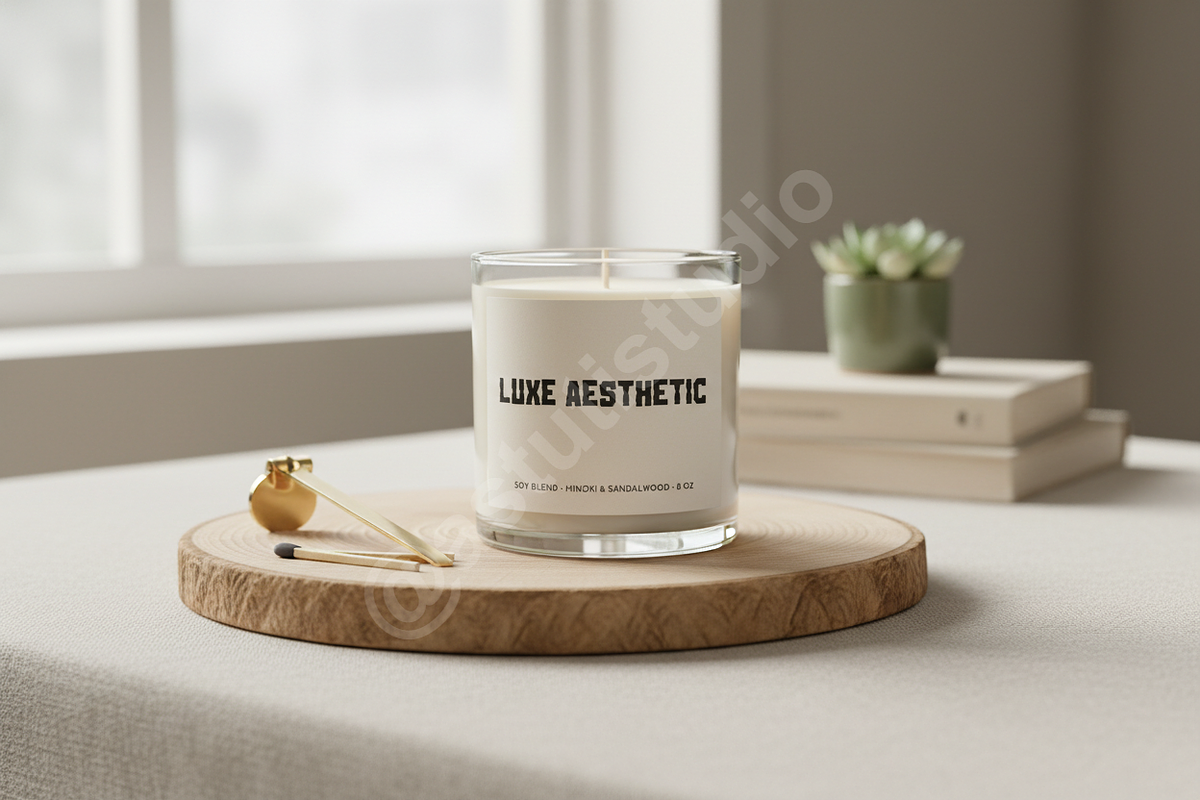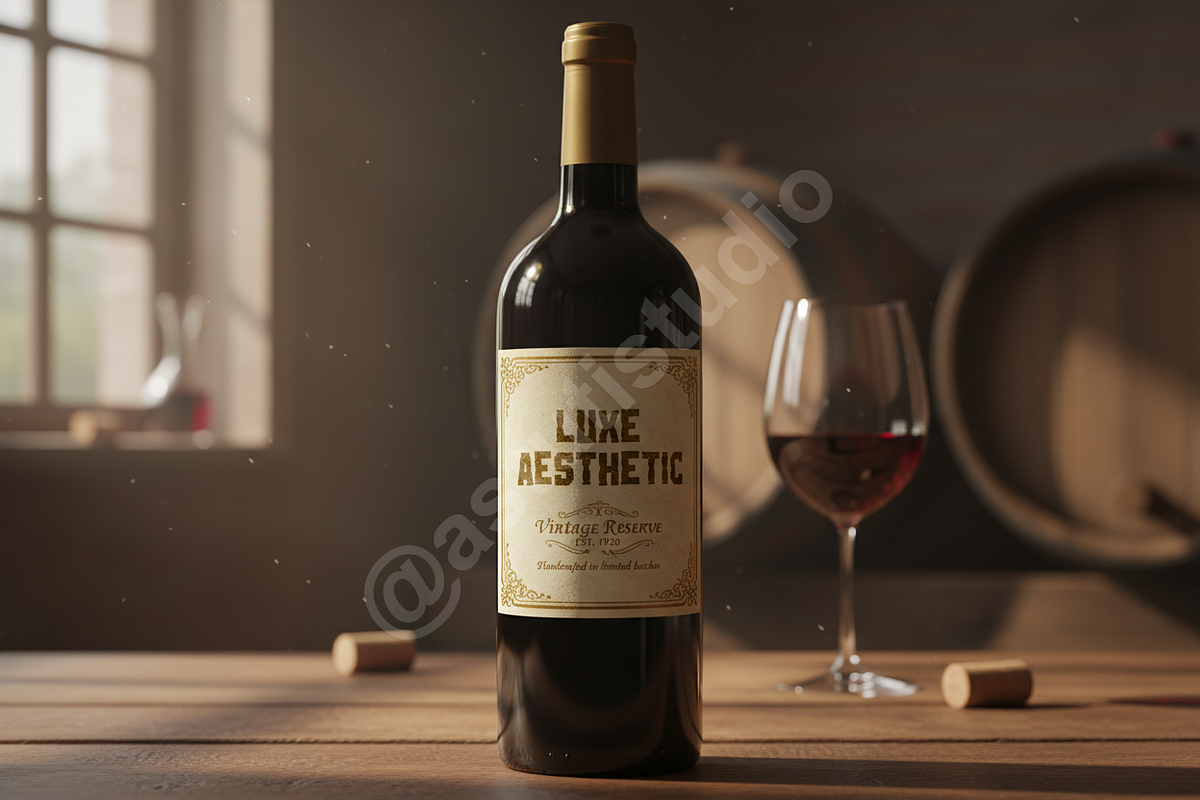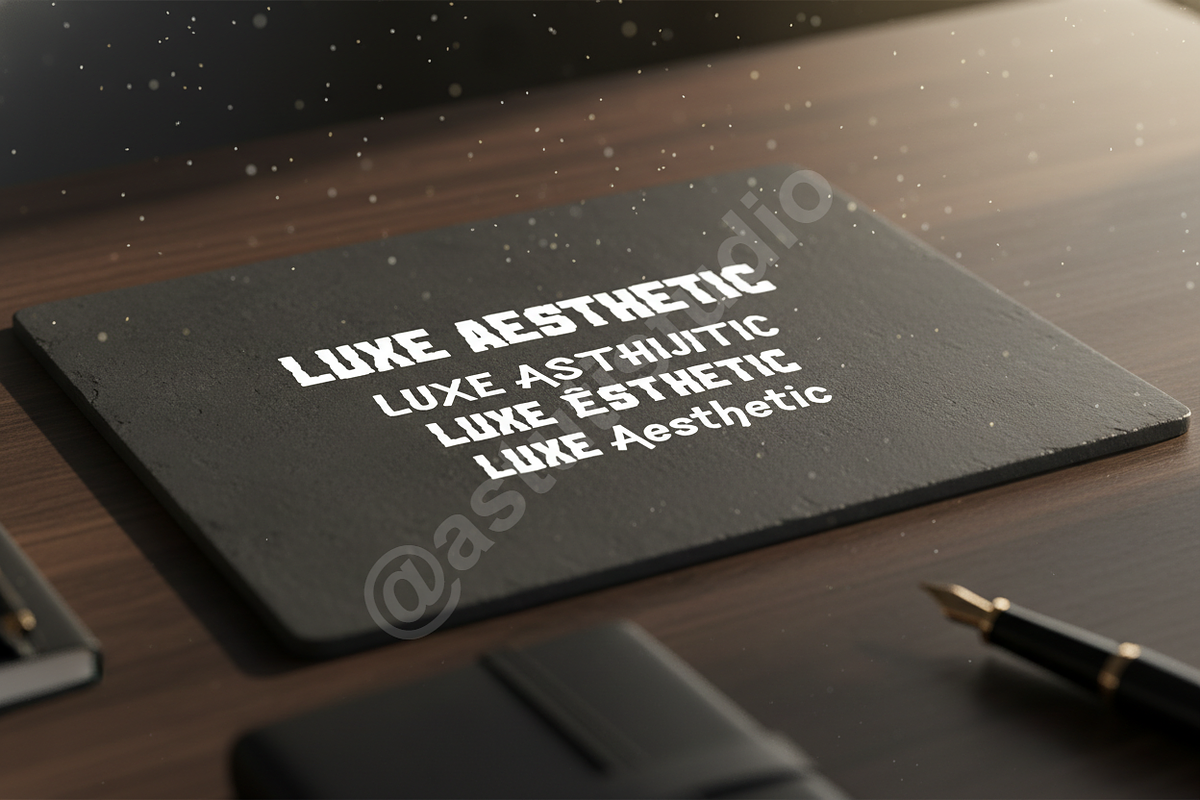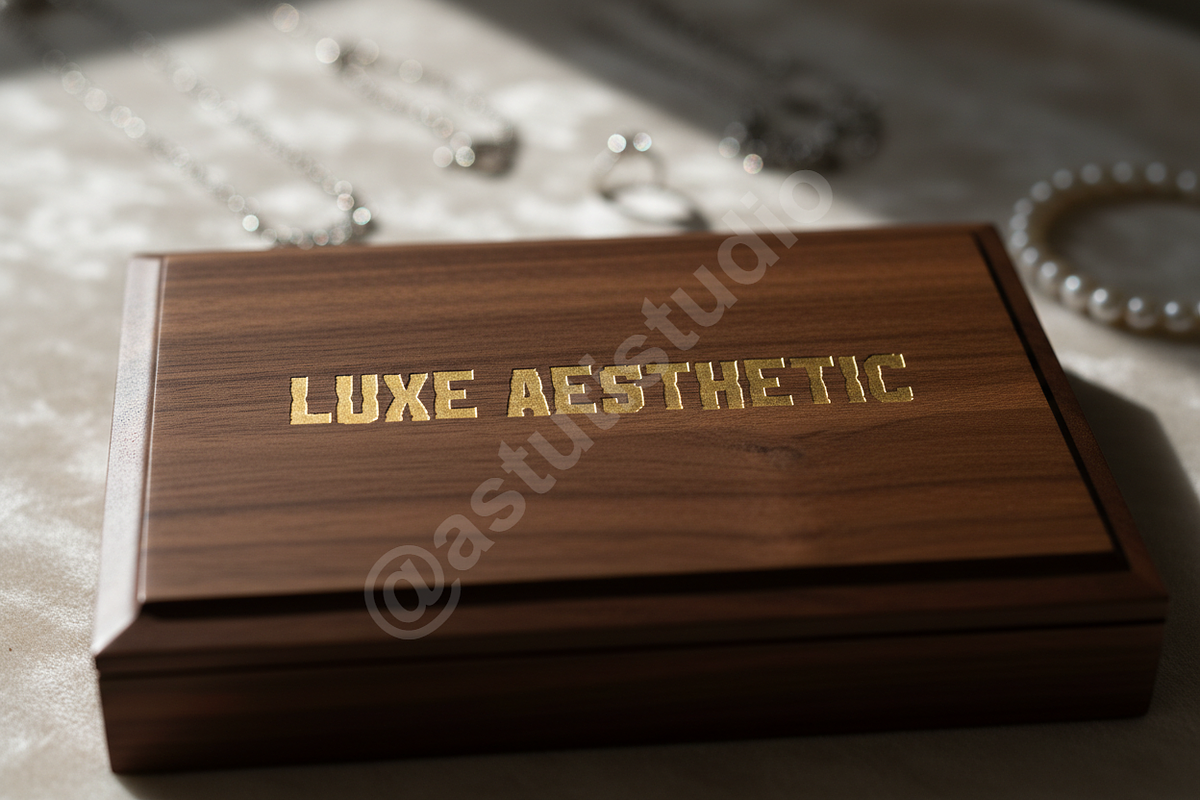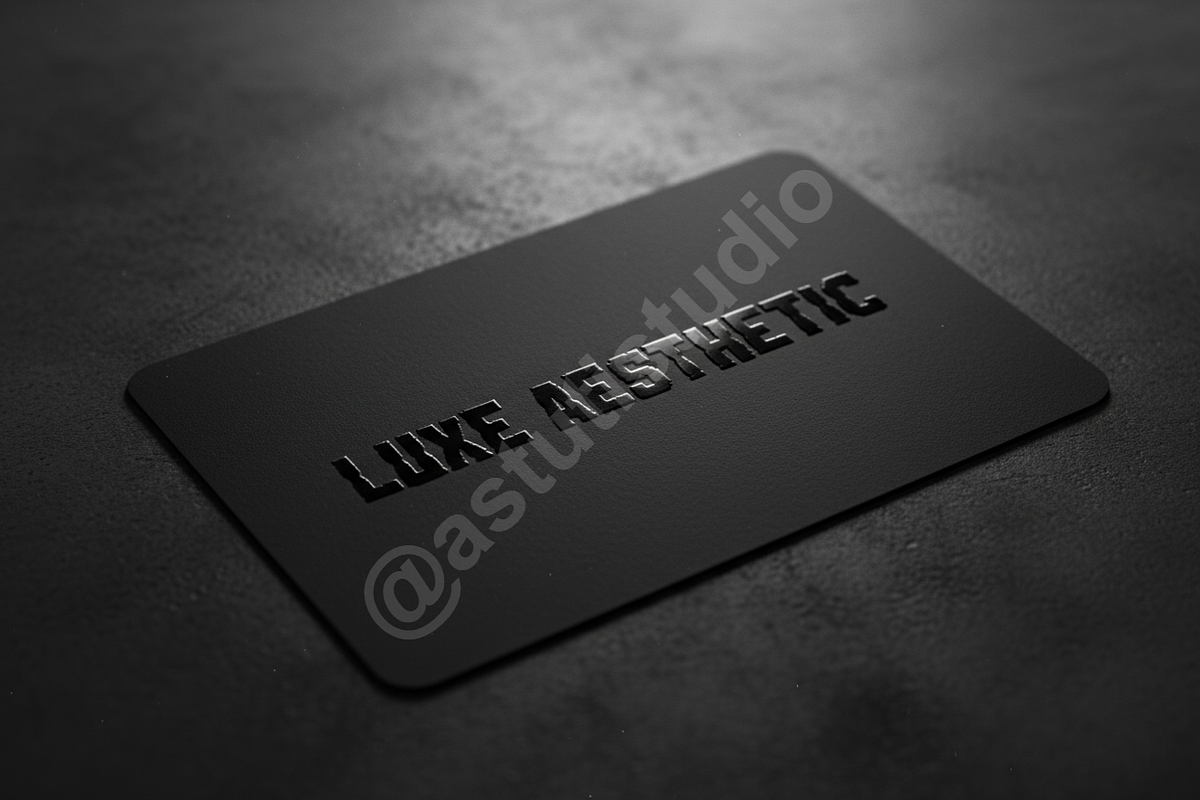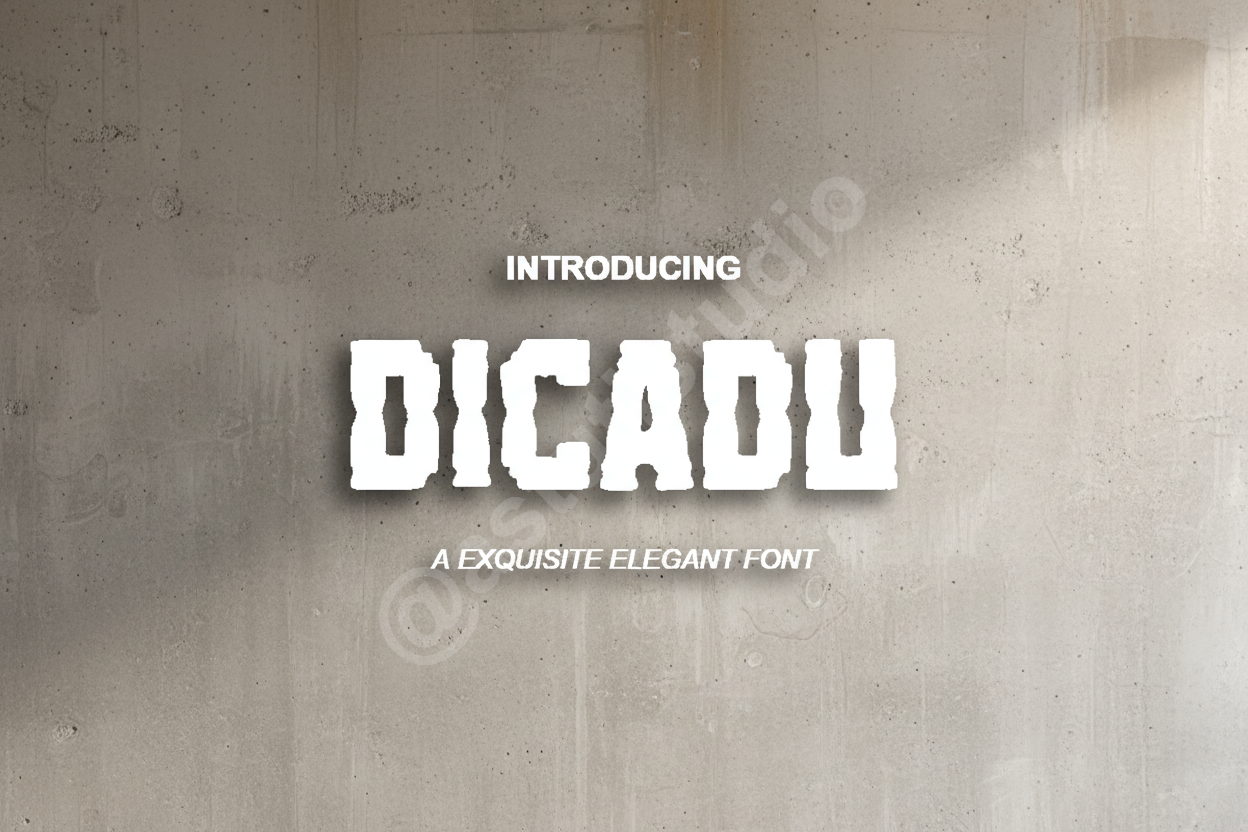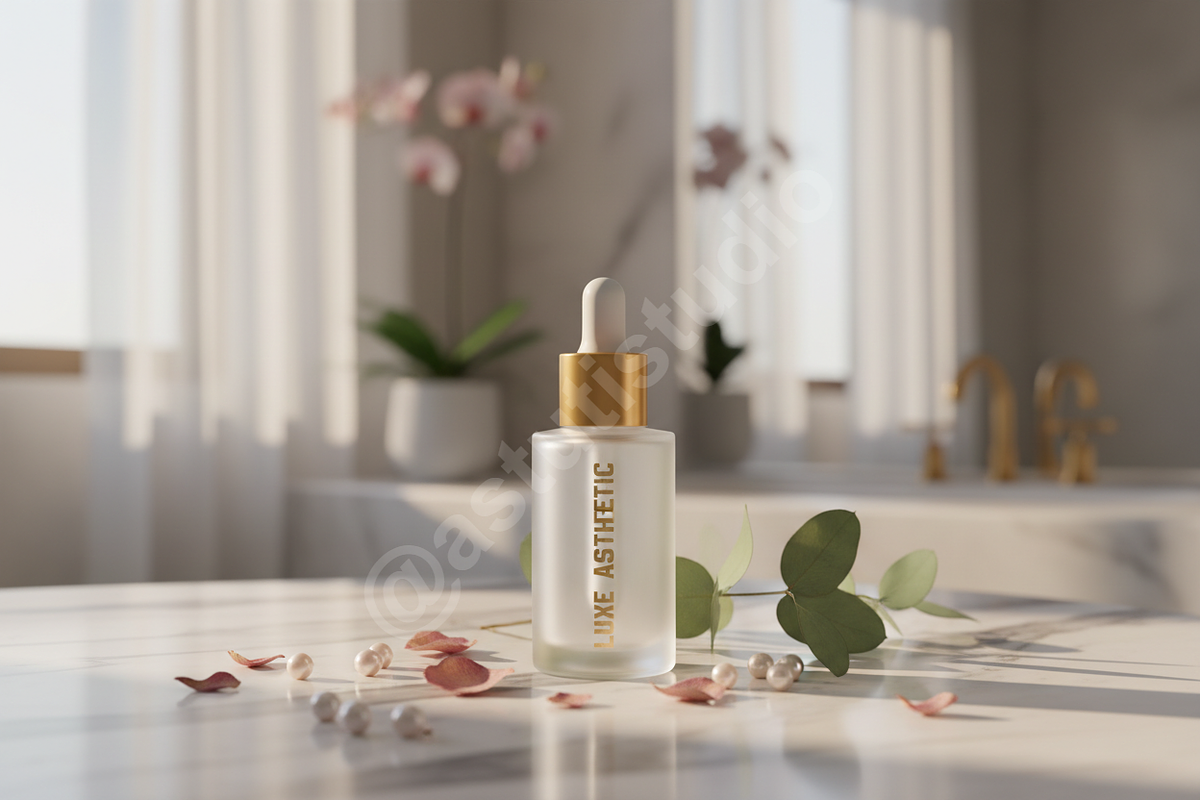
Dicadu – Elegant Serif Typeface for
Introducing Dicadu, an exquisite serif typeface designed for the discerning creator seeking unparalleled elegance and sophistication. Dicadu embodies a premium aesthetic, meticulously crafted to elevate your projects with its refined letterforms and graceful presence. This versatile font is the ultimate choice for luxury branding, high-end editorial layouts, impactful social media campaigns, and any design requiring a touch of refined class.
- Timeless Elegance: Each character is designed with precision, offering a harmonious blend of classic beauty and modern appeal.
- Exceptional Readability: Dicadu maintains clarity and legibility across various sizes, ensuring your message is conveyed with utmost sophistication.
- Versatile Application: Perfectly suited for logos, headlines, body text, packaging, wedding invitations, and digital interfaces.
- Multilingual Support: Broad language support to reach a global audience with consistent style.
- OpenType Features: Includes a range of ligatures and alternate characters for enhanced typographic flexibility and unique design possibilities.
- Uppercase & Lowercase Letters
- Extensive Character Set
- Standard Ligatures & Alternates